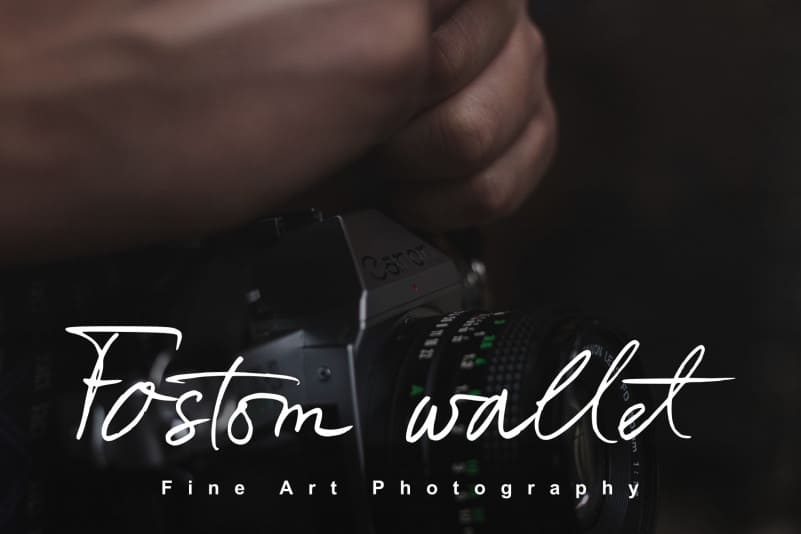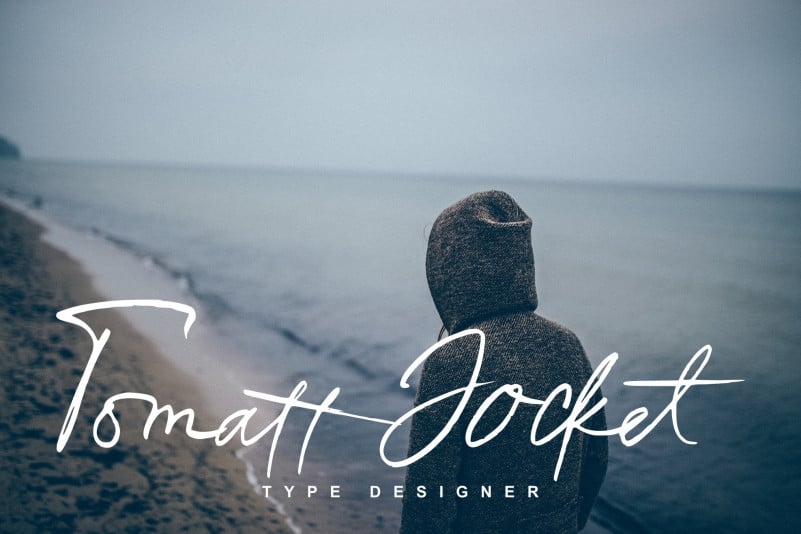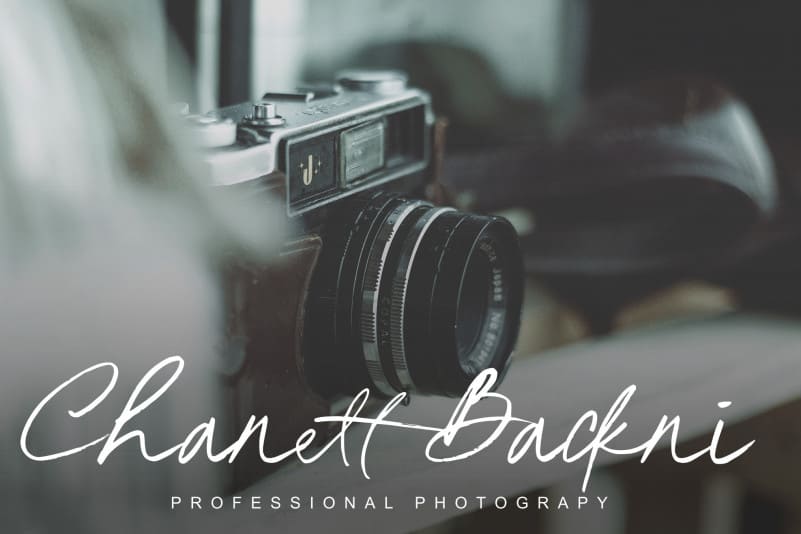
Jockwatt Script Font
Jockwatt Script Font is a stylish modern calligraphy font. It’s perfect for branding, wedding invitations and cards, and maybe for packaging labels. Jockwatt includes a complete set of upper and lower case letters, numbers, various punctuation marks and 42 ligature. What did you get,